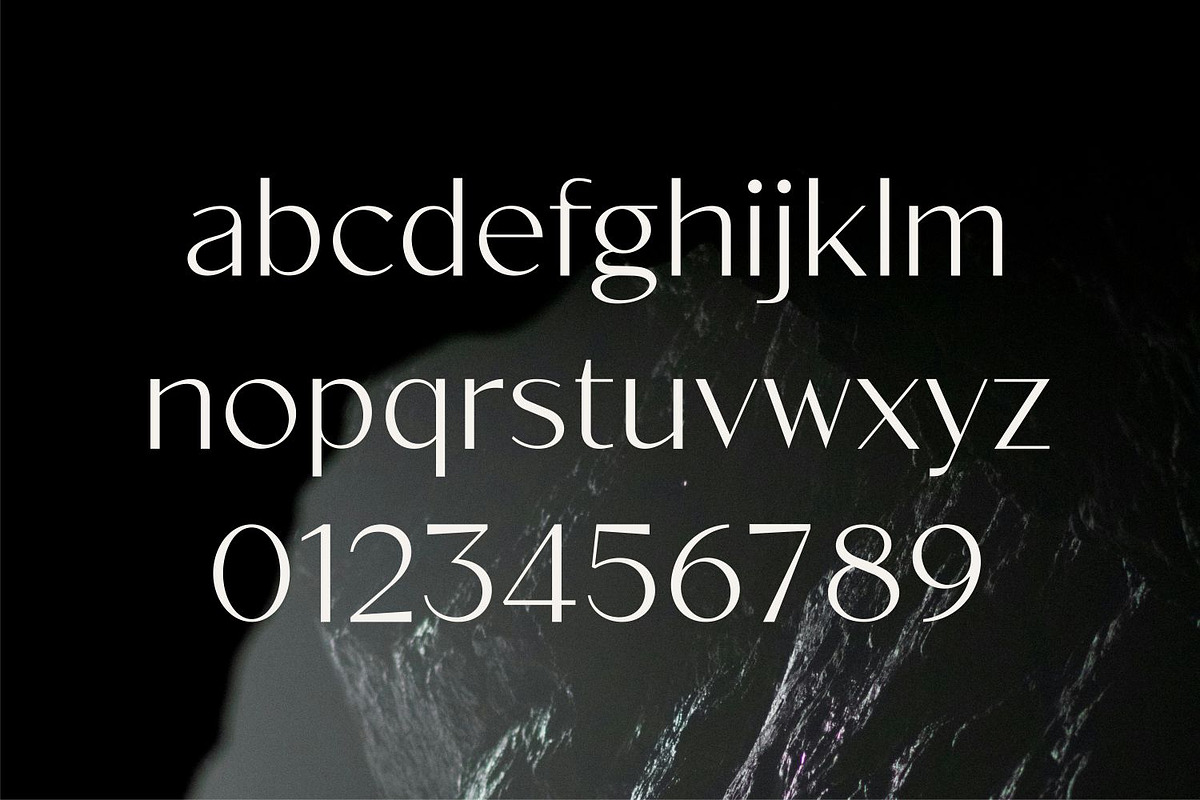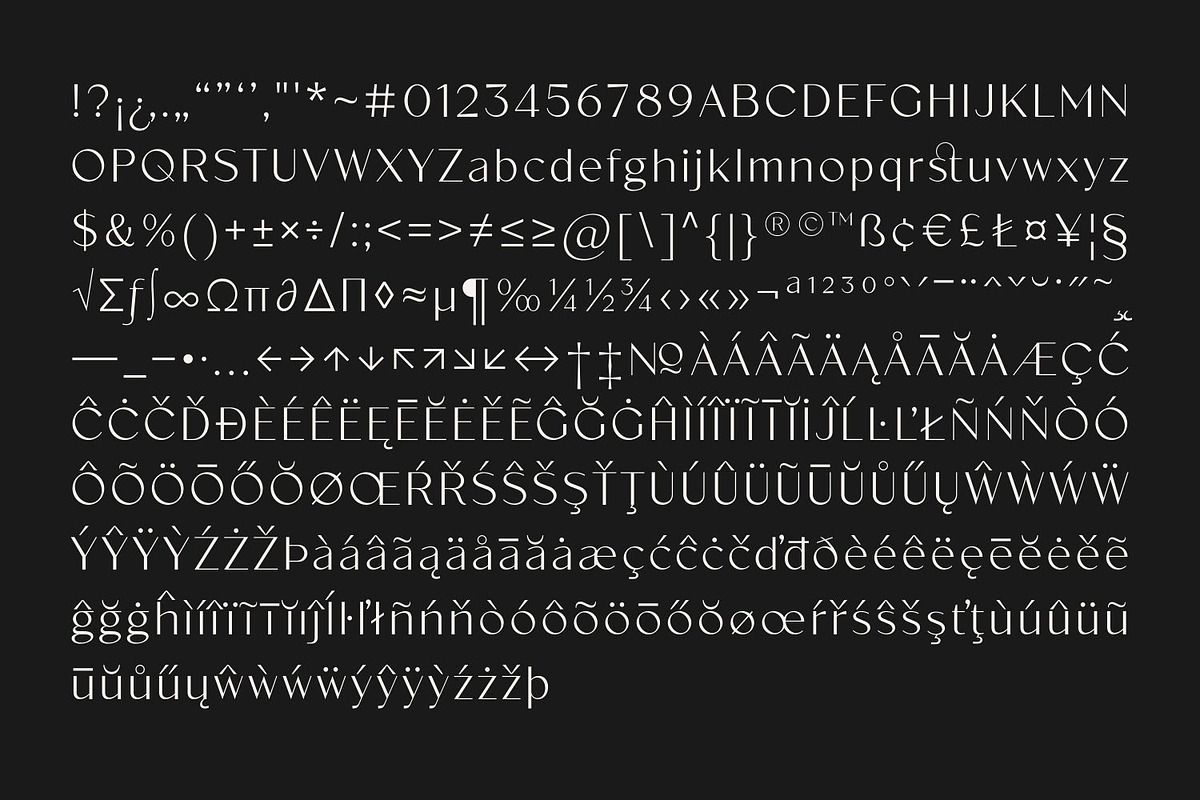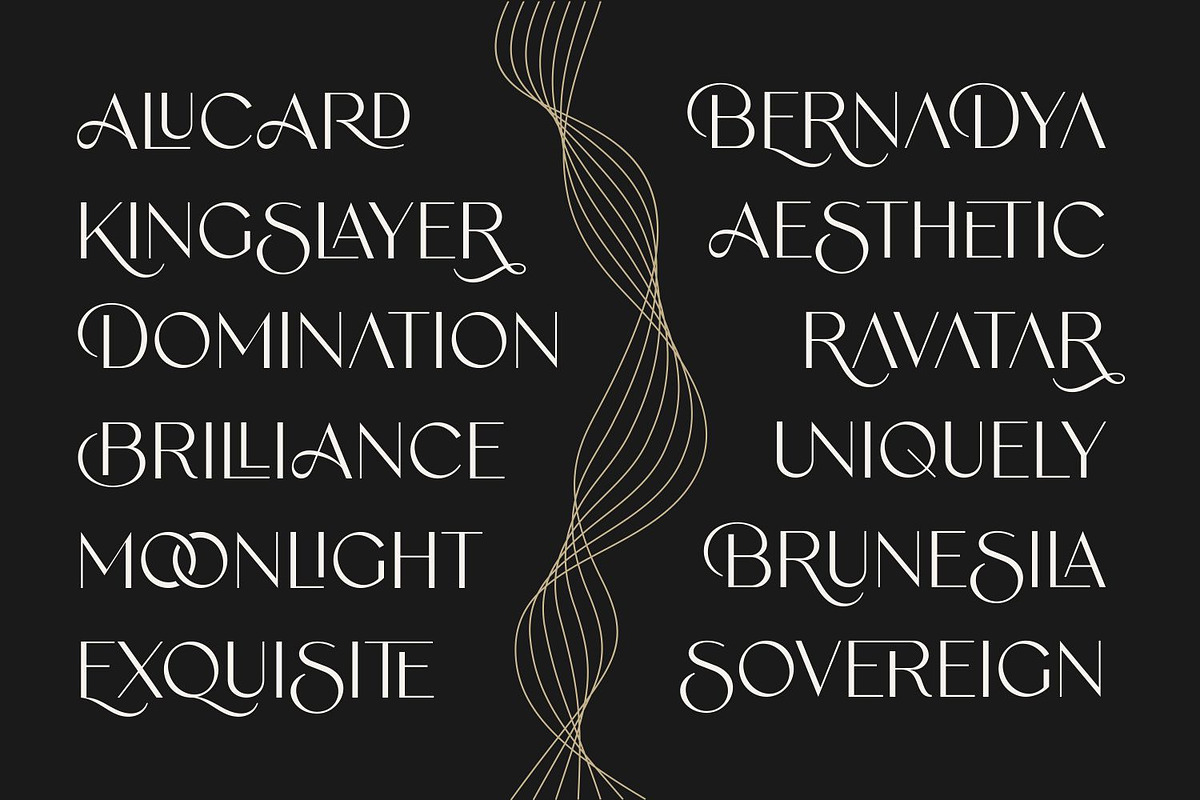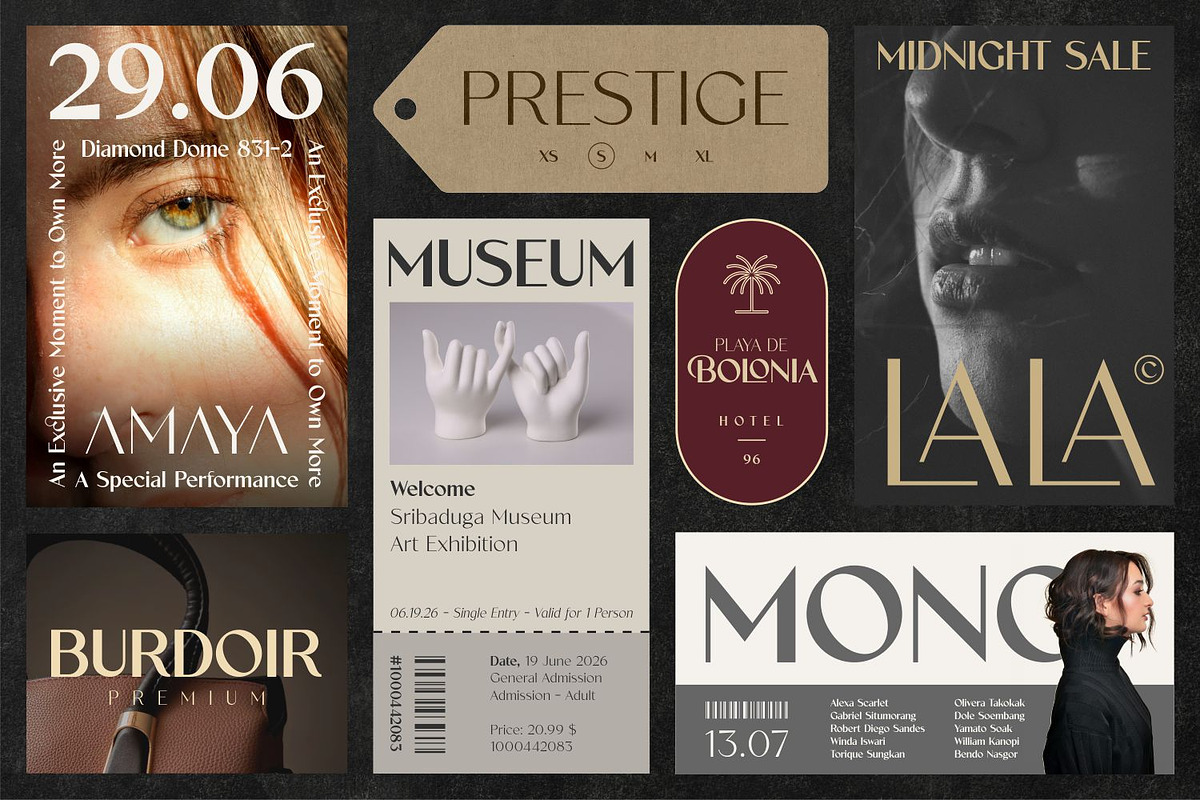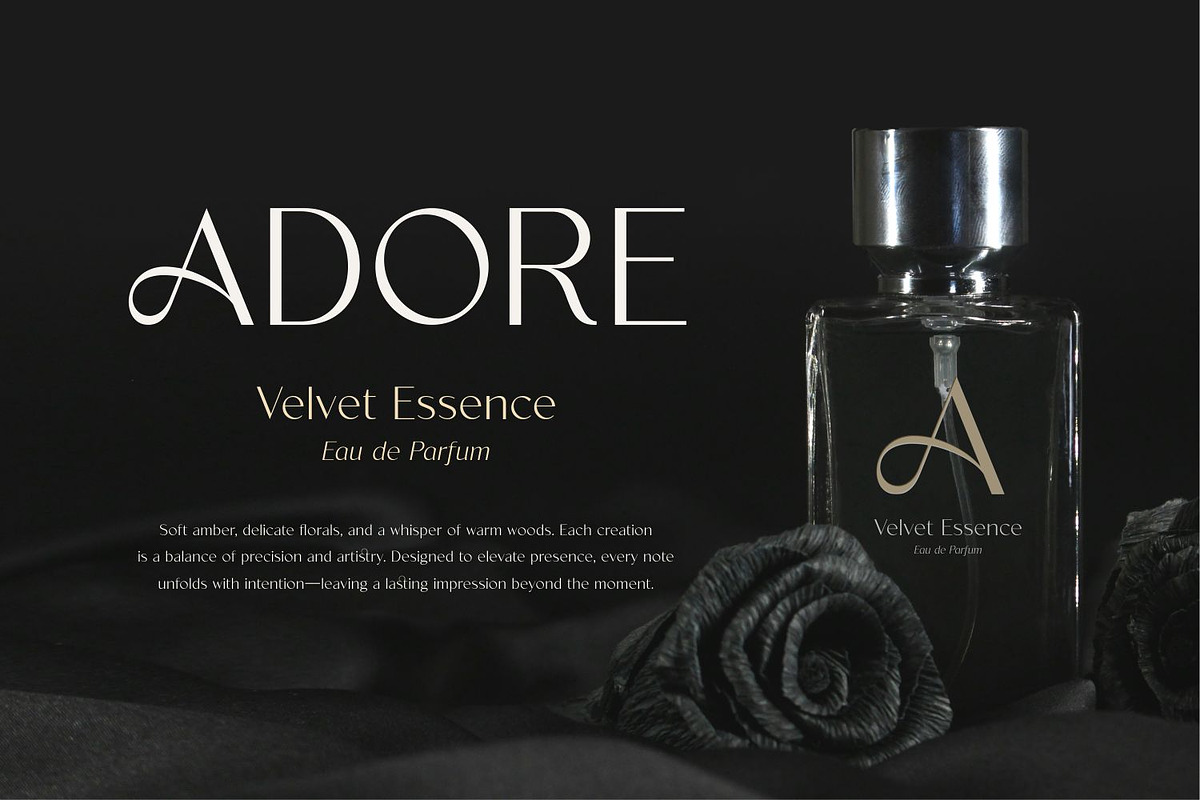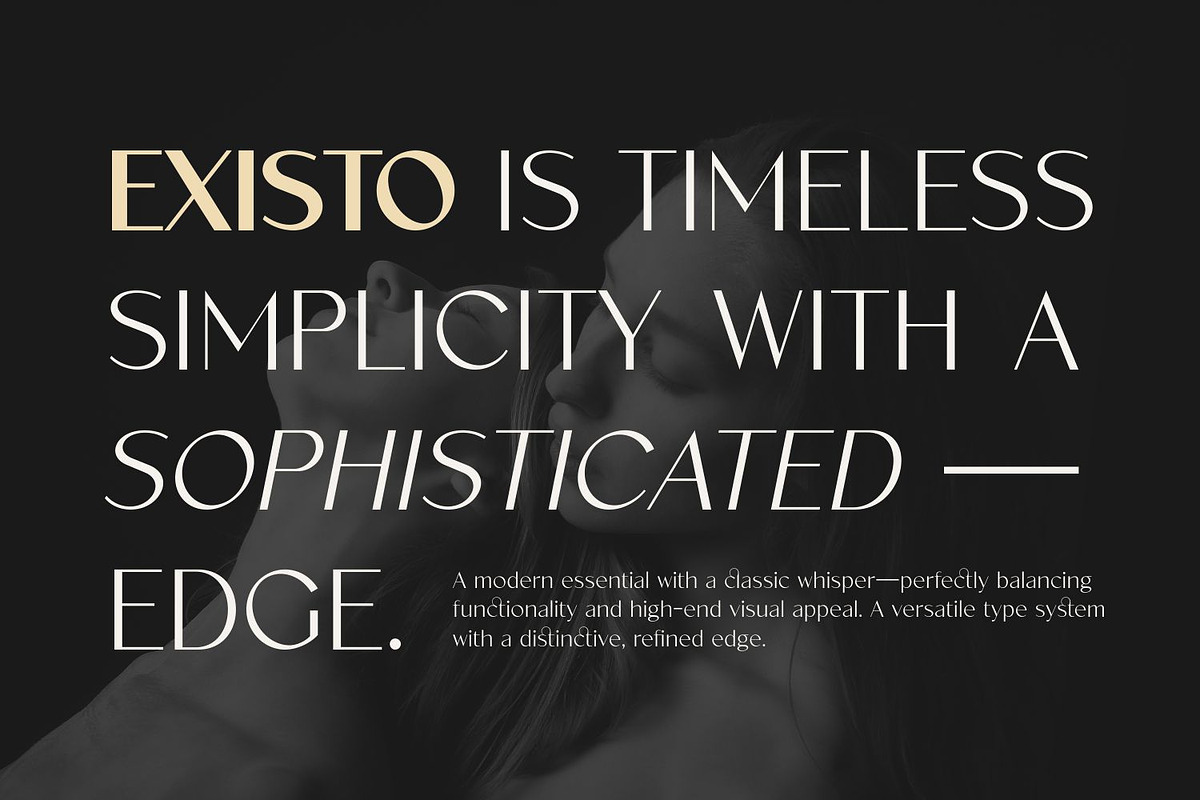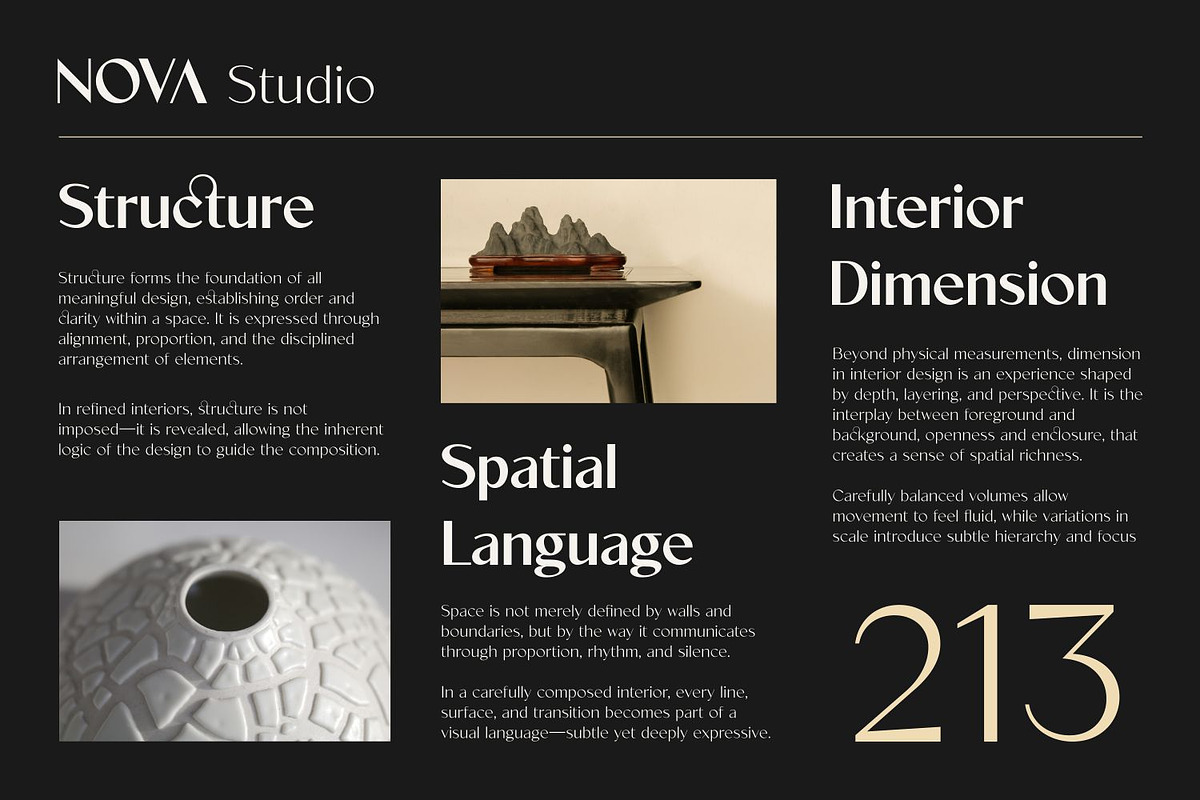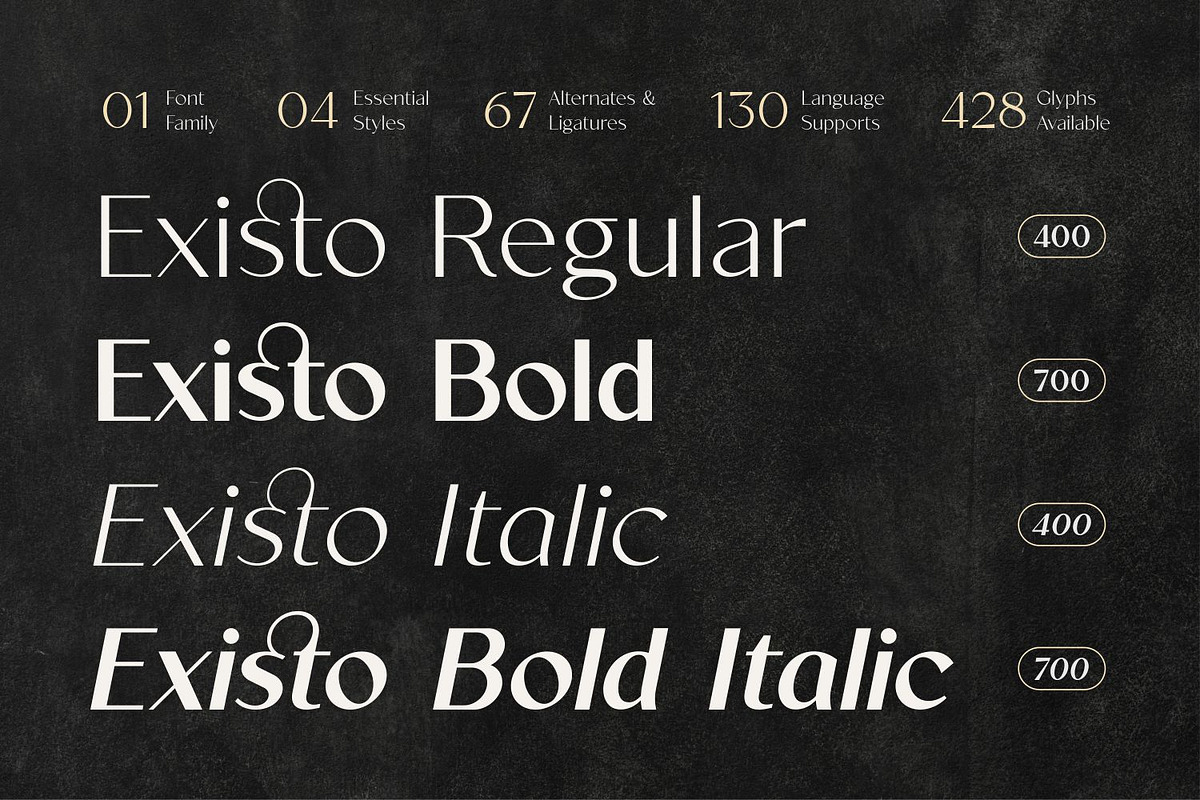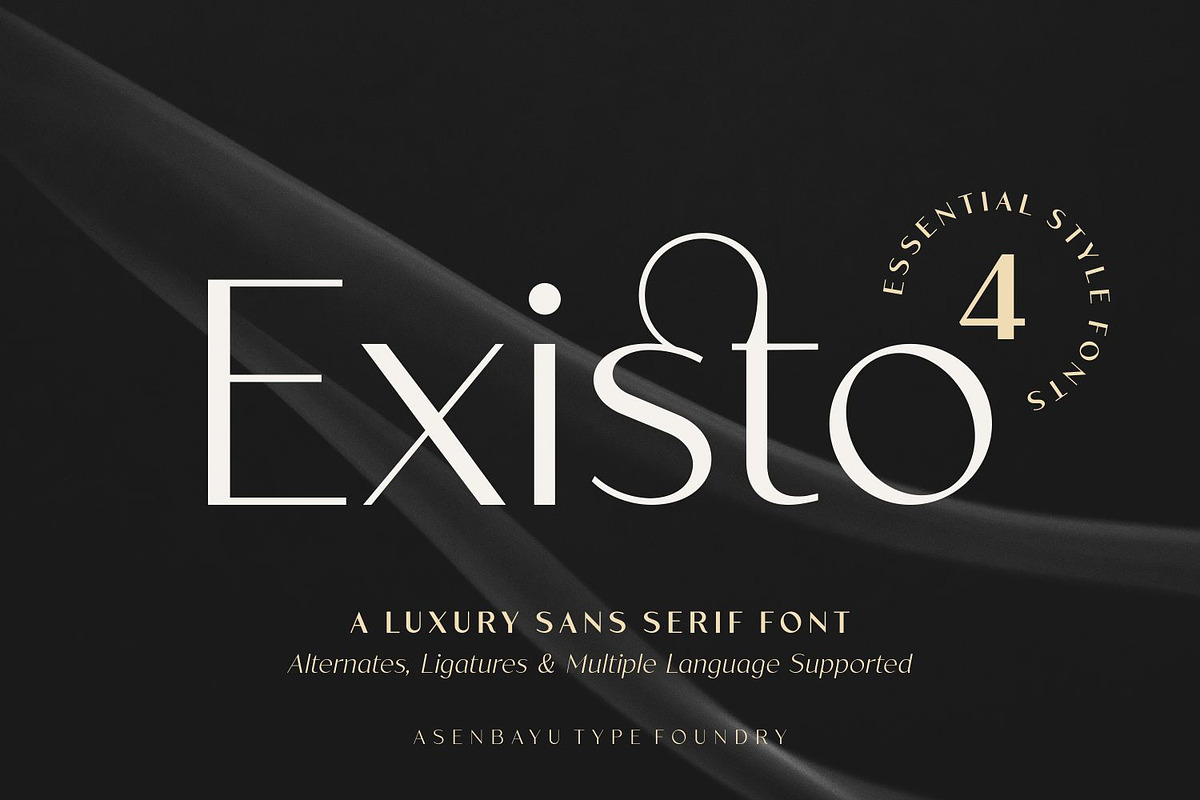
Existo Font Family
Existo is a refined typeface crafted with precision, redefining the balance between modern sans-serif clarity and subtle serif-inspired elegance. It brings together clean structure and sophisticated character, resulting in a versatile font that feels both contemporary and timeless.
Designed for high-end visual communication, Existo carries a distinctive personality—minimal yet expressive, elegant yet confident. Its carefully constructed letterforms deliver a polished aesthetic, making it ideal for projects that demand clarity without sacrificing style.
Existo Font Features:
- 4 Fonts (Regular, Italic, Bold, Bold Italic)
- 428 glyph each font file
- Standard glyph
- Stylistic alternates & ligatures
- Symbol & punctuation
- Multiple languages supported (130 languages)
Use Cases/ Perfect For:
- High-End Branding
- Modern Editorial Layouts
- Fashion & Beauty Visuals
- Elegant Logo Design
- Premium Packaging
- Website Design
Bring a sense of refined sophistication to every design with Existo